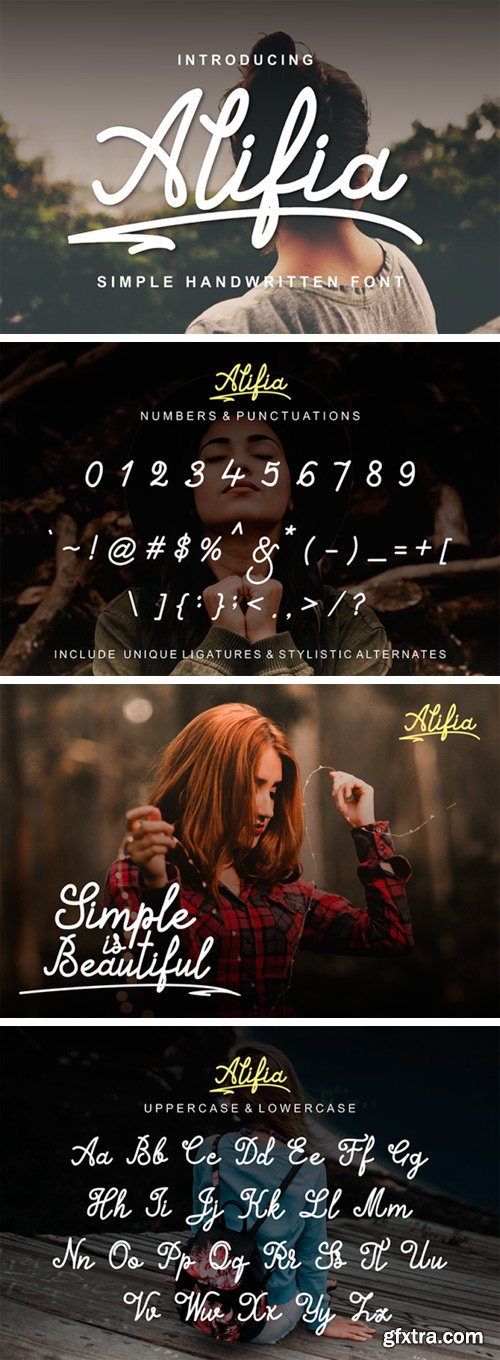
Alifia 197061
Alifia is a simple handwritten font that can use to make a design for logo branding, poster headline, magazines, book titles, business cards, beautiful fashion designs, advertisements, product designs, wedding invitation, signature or handwritten quote.